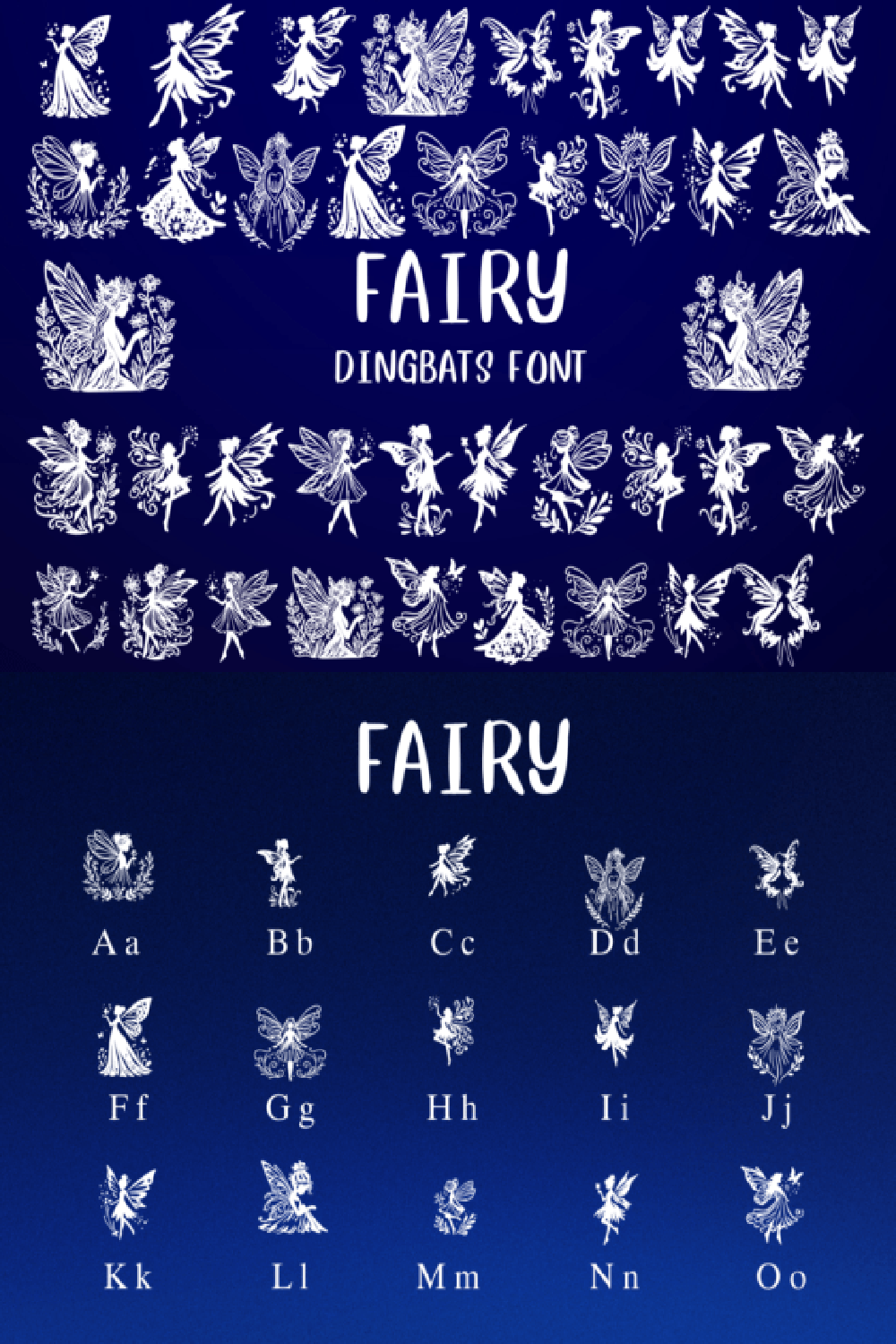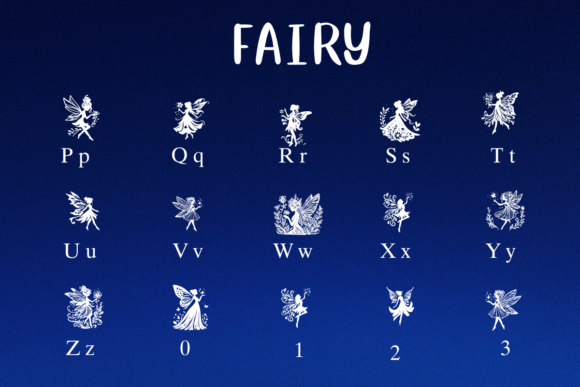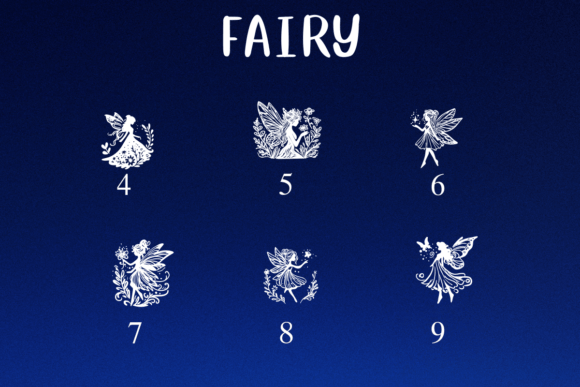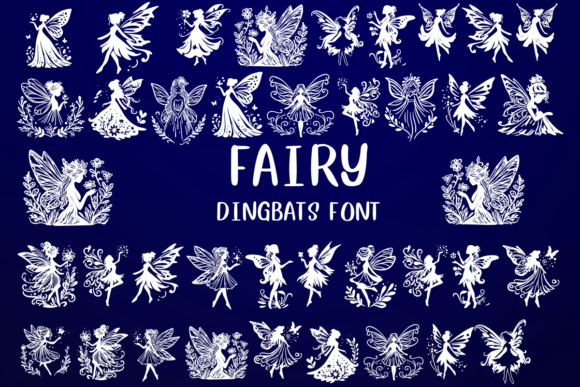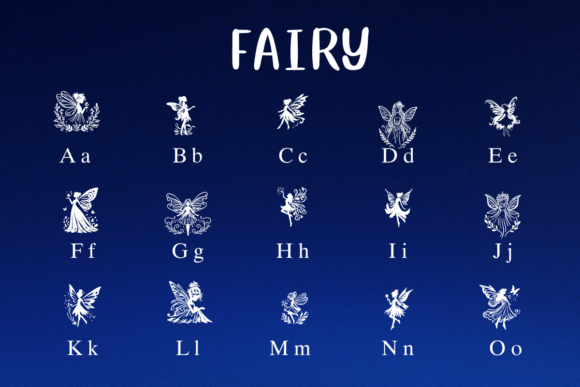
Fairl Font: Whimsical Dingbats Font for Cricut & DIY Crafts
About the Fairl Font
Crafted with precision, the Fairl Font is ready to bring your ideas to life. Fairy is a dingbats font with a whimsical theme. This font can enhance your creative projects such as wedding invitations, DIY, crafts, decorations, logos, and many other creative ideas.
Fairl’s whimsical nature makes it ideal for projects requiring a lighthearted touch, such as children’s books, playful branding for boutiques, or decorative elements in wedding stationery. It excels in short bursts of text within logos, headers, and short captions, adding a touch of charm. However, its decorative style is unsuitable for body text or UI elements where readability is paramount. Avoid using Fairl for extensive amounts of text.
Pairing Fairl effectively requires a contrasting typeface to balance its playful energy. A clean sans-serif like Open Sans or Lato would provide excellent readability for supporting text. For a more sophisticated feel, consider pairing it with a classic serif font like Garamond or a slightly more modern serif like Playfair Display. The key is to maintain a visual balance, letting Fairl’s whimsicality shine without overwhelming the design.
Fairl projects a friendly and charming personality, best suited to brands focused on childhood, creativity, or handcrafted goods. Its overall mood is lighthearted but not childish, making it versatile enough for a range of applications, as long as legibility isn’t compromised.
Fairl Font Usage Examples
Fairl Font Example